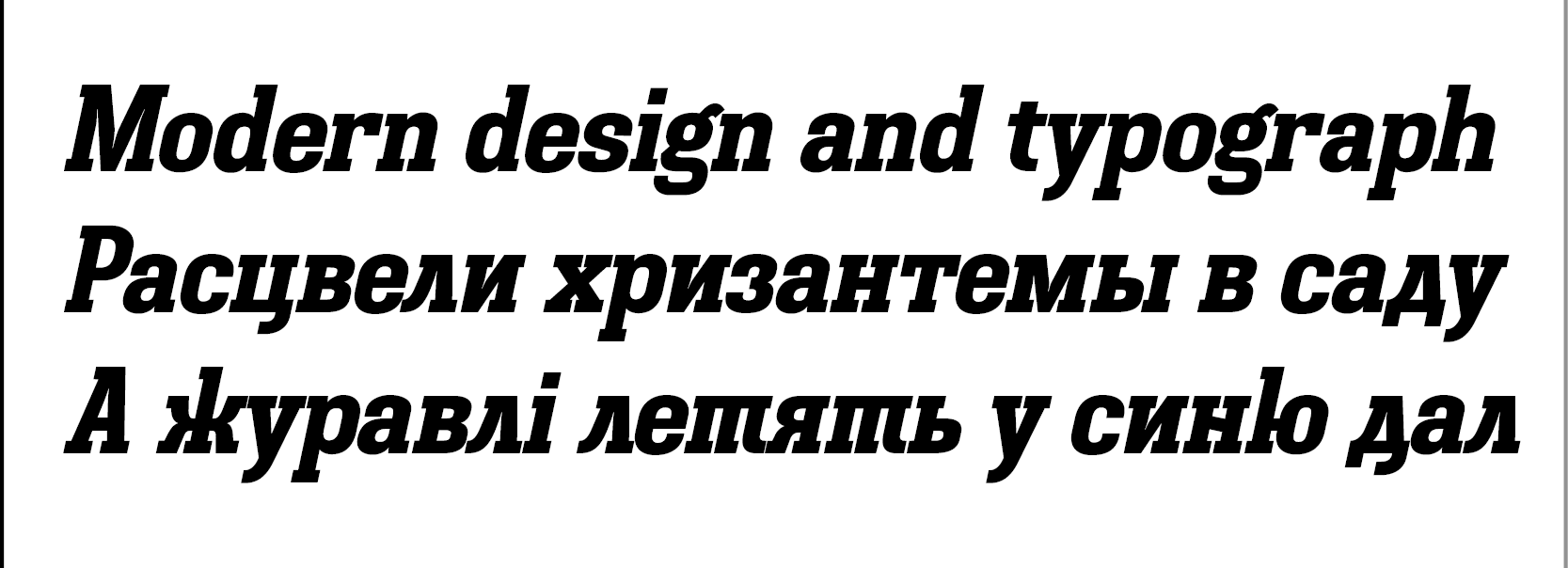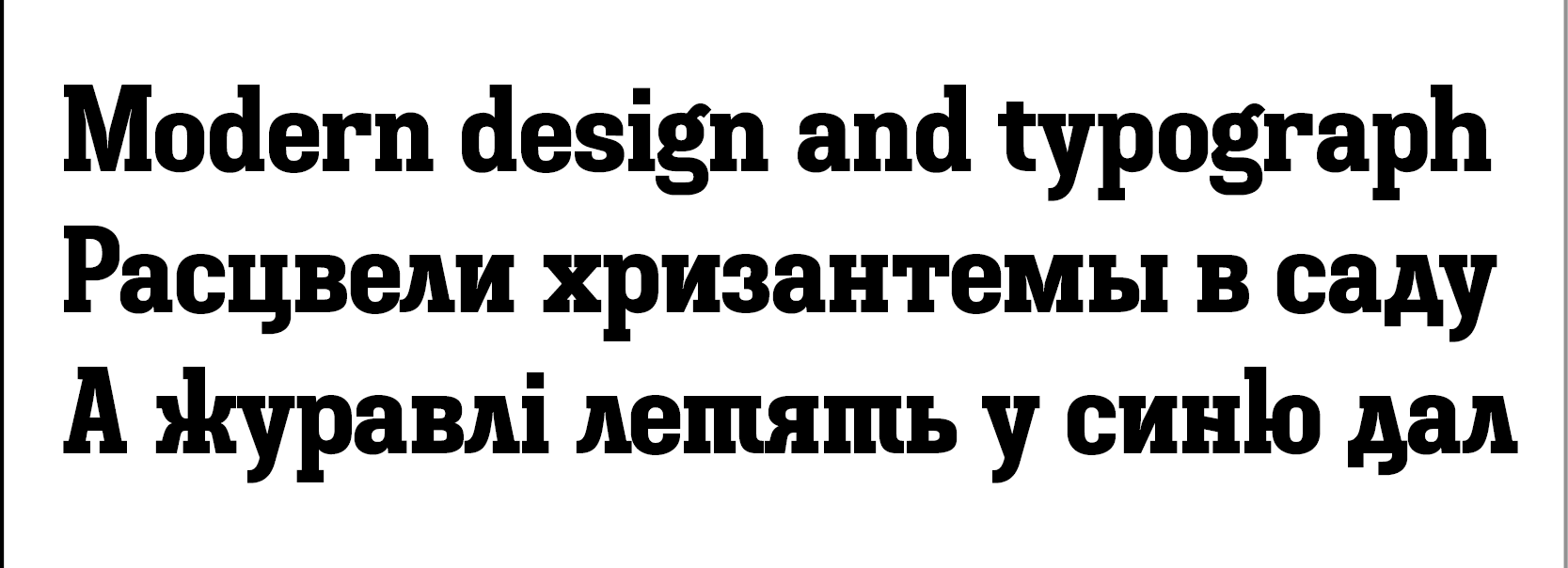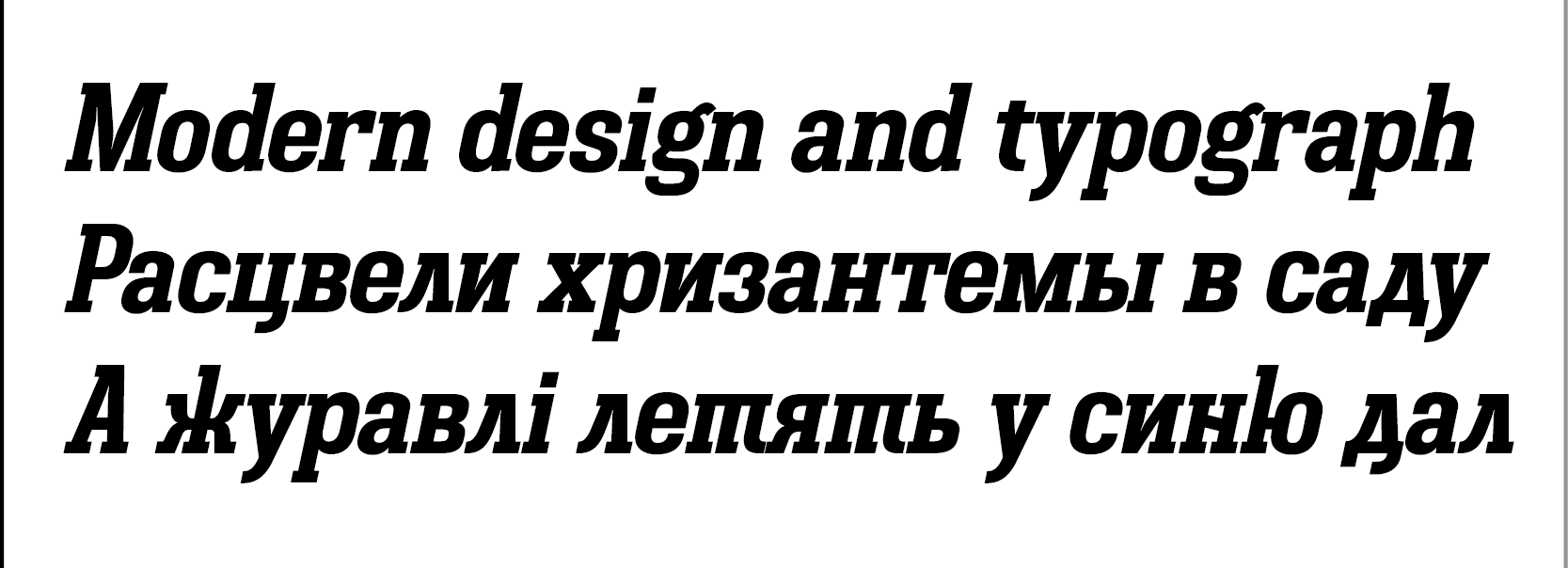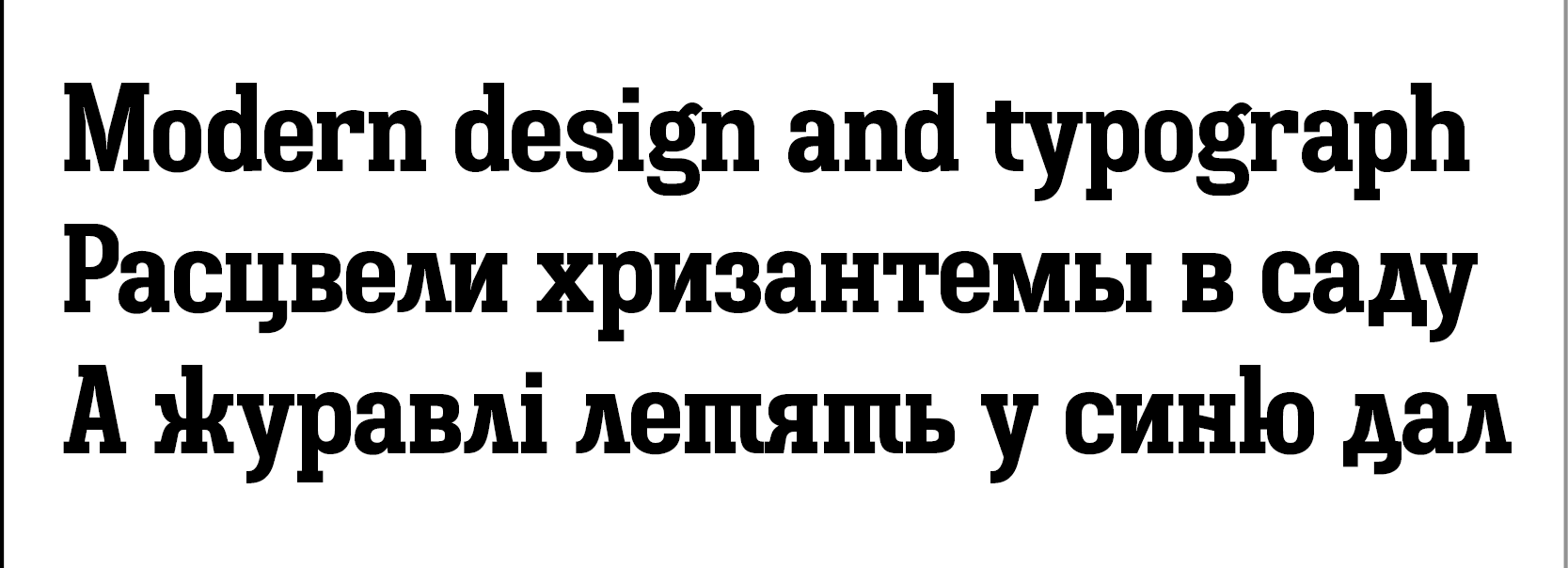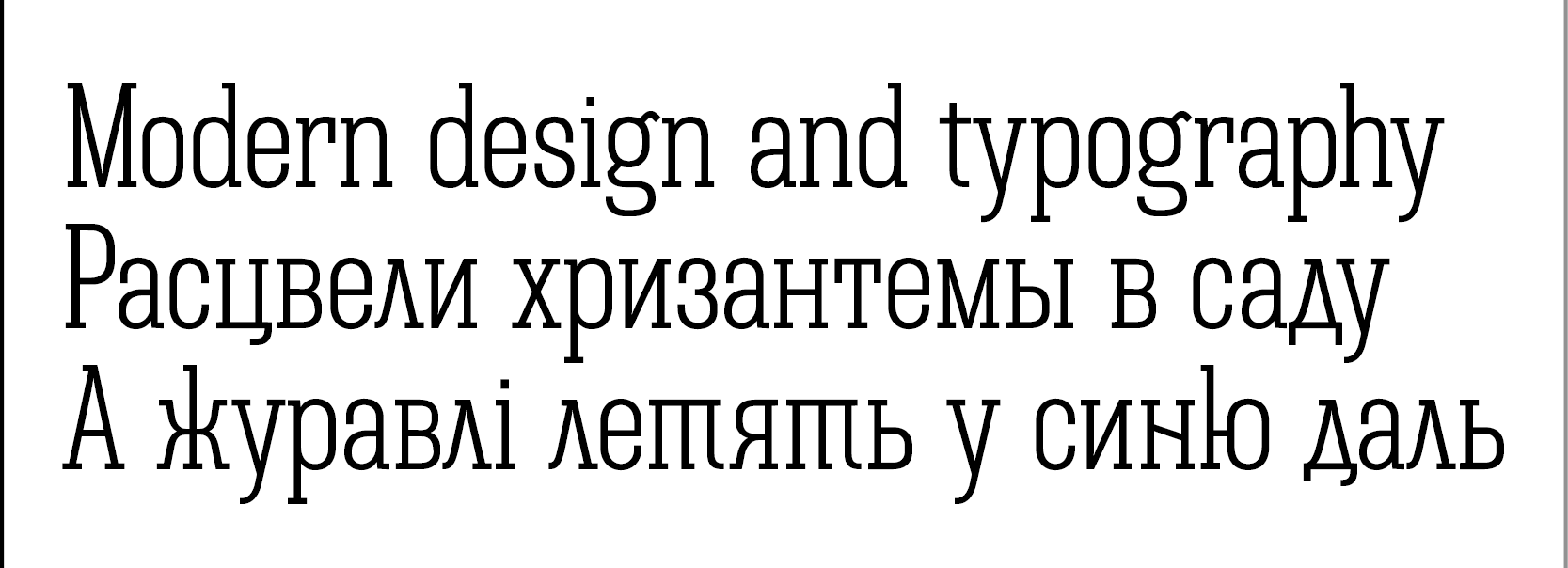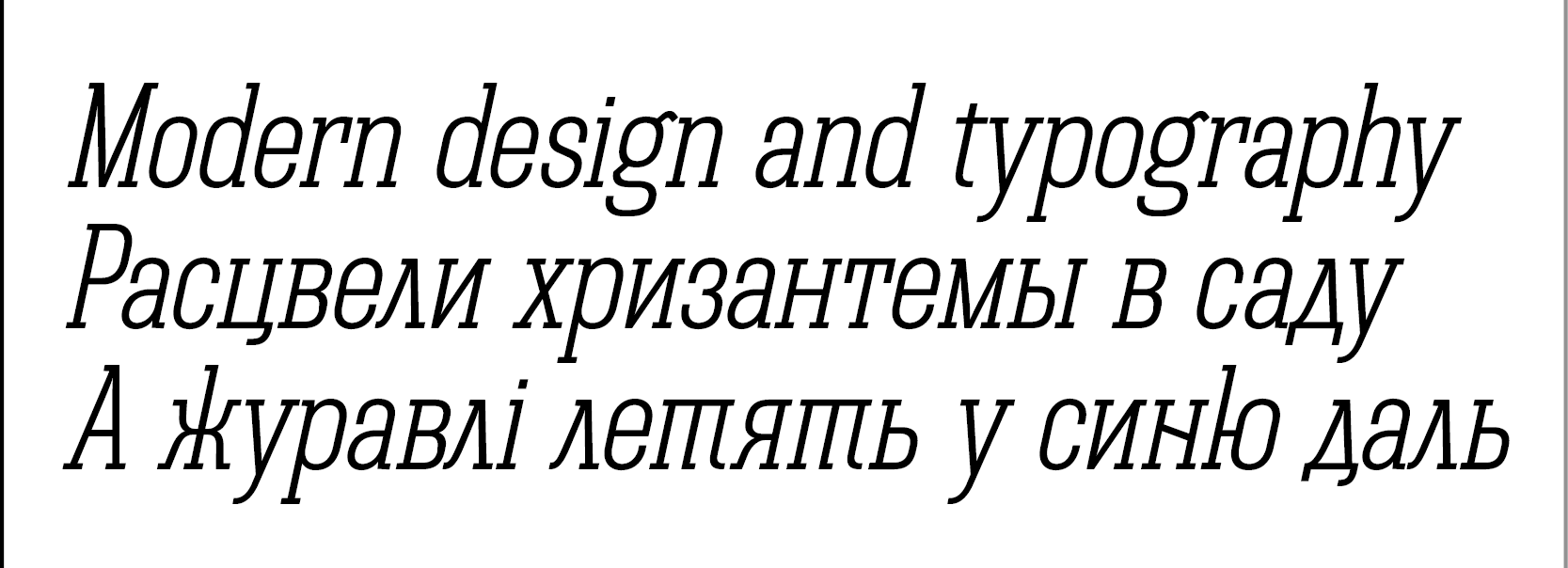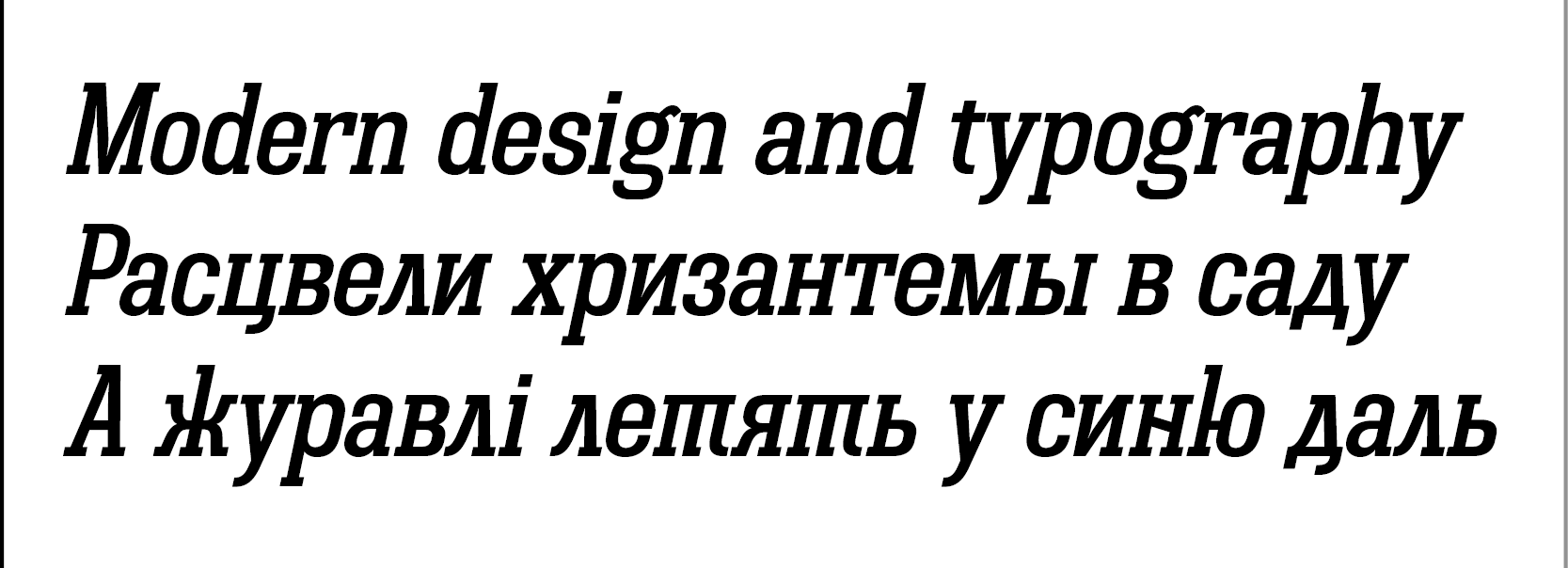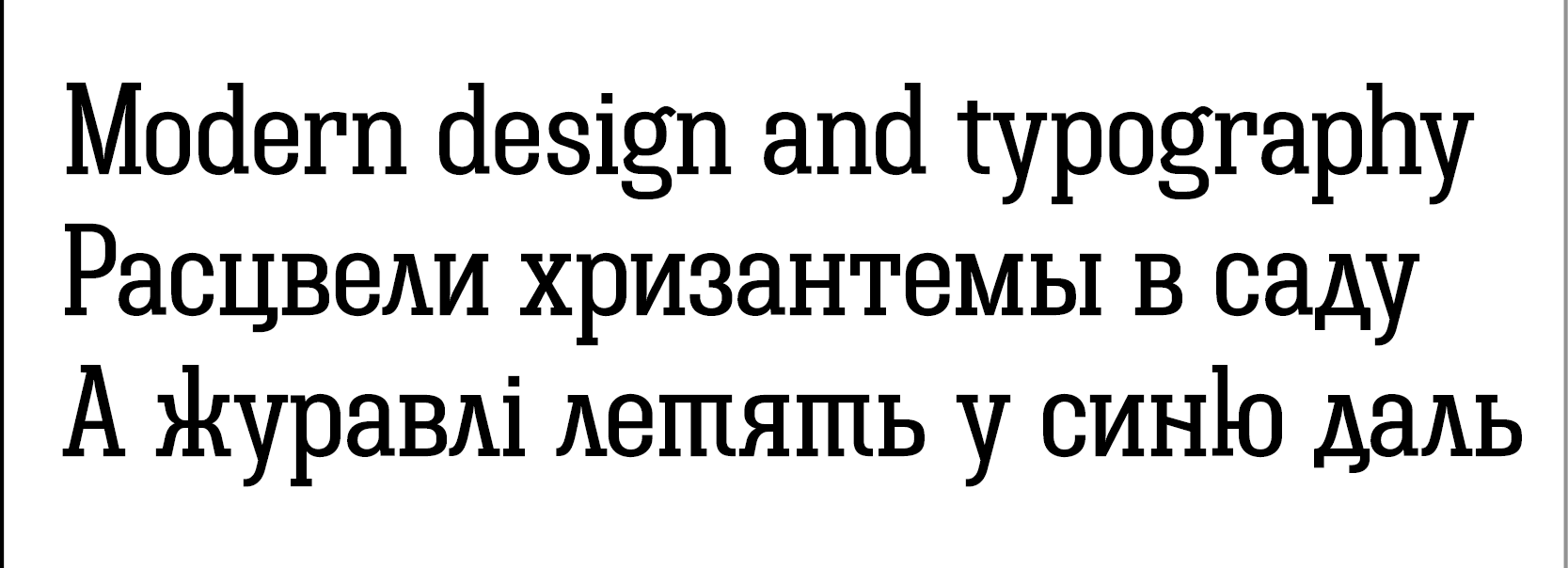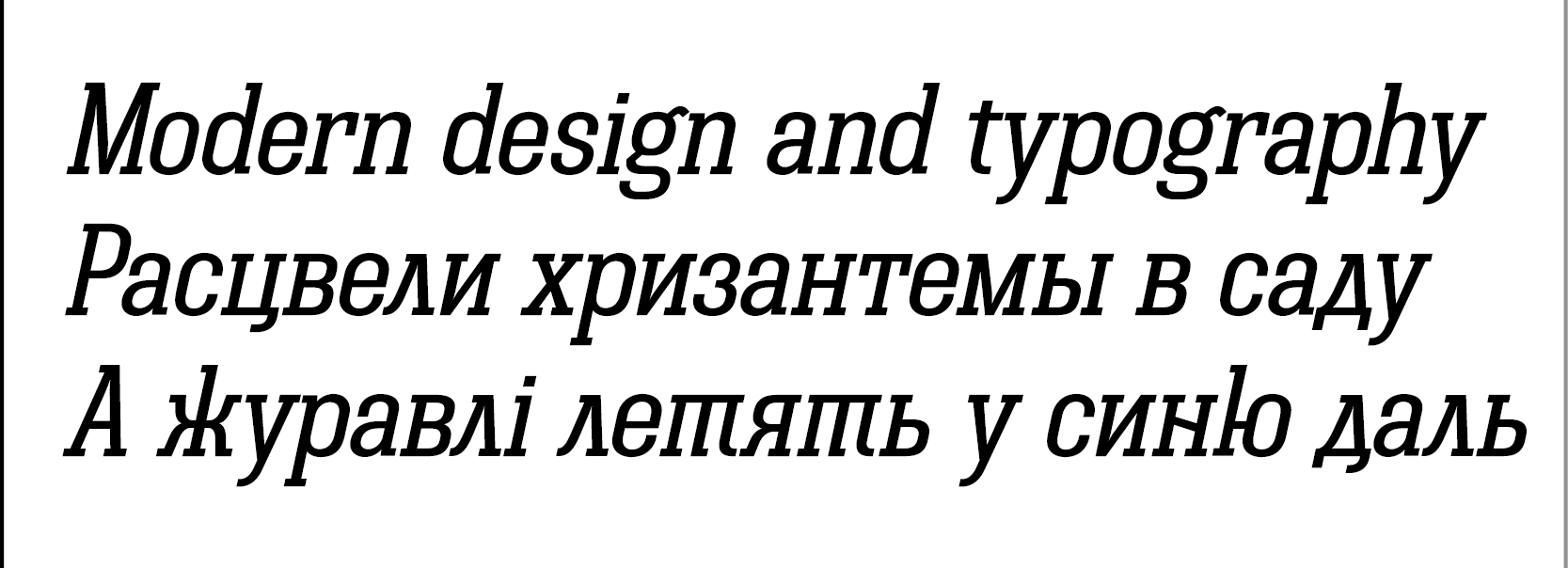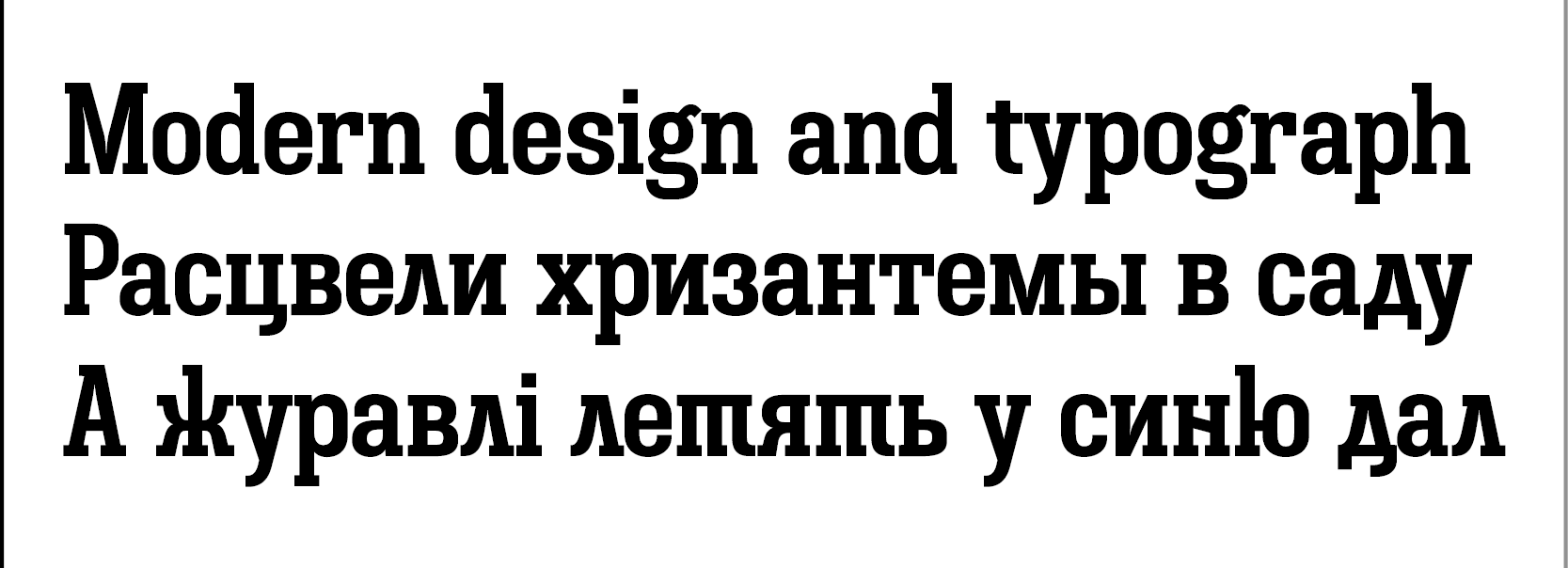
Serif typefaces, Tetiana Ivanenko
IT Gunpowder
Designer: Tetiana Ivanenko
Design date: 2021
The font family includes Latin Centra European,  Cyrillic and Ukrainian alphabet systems.
The font can be used as a text, Display and title font.